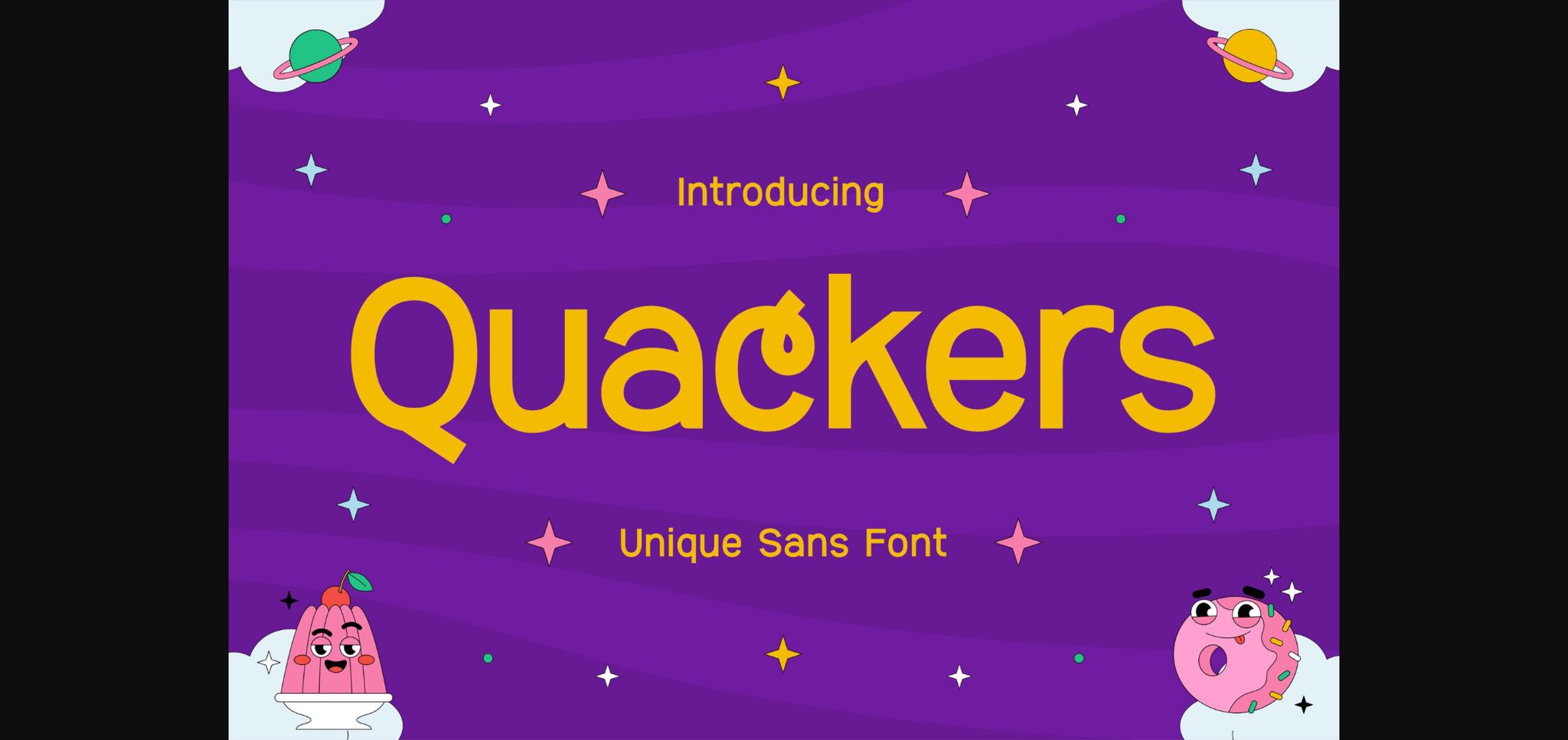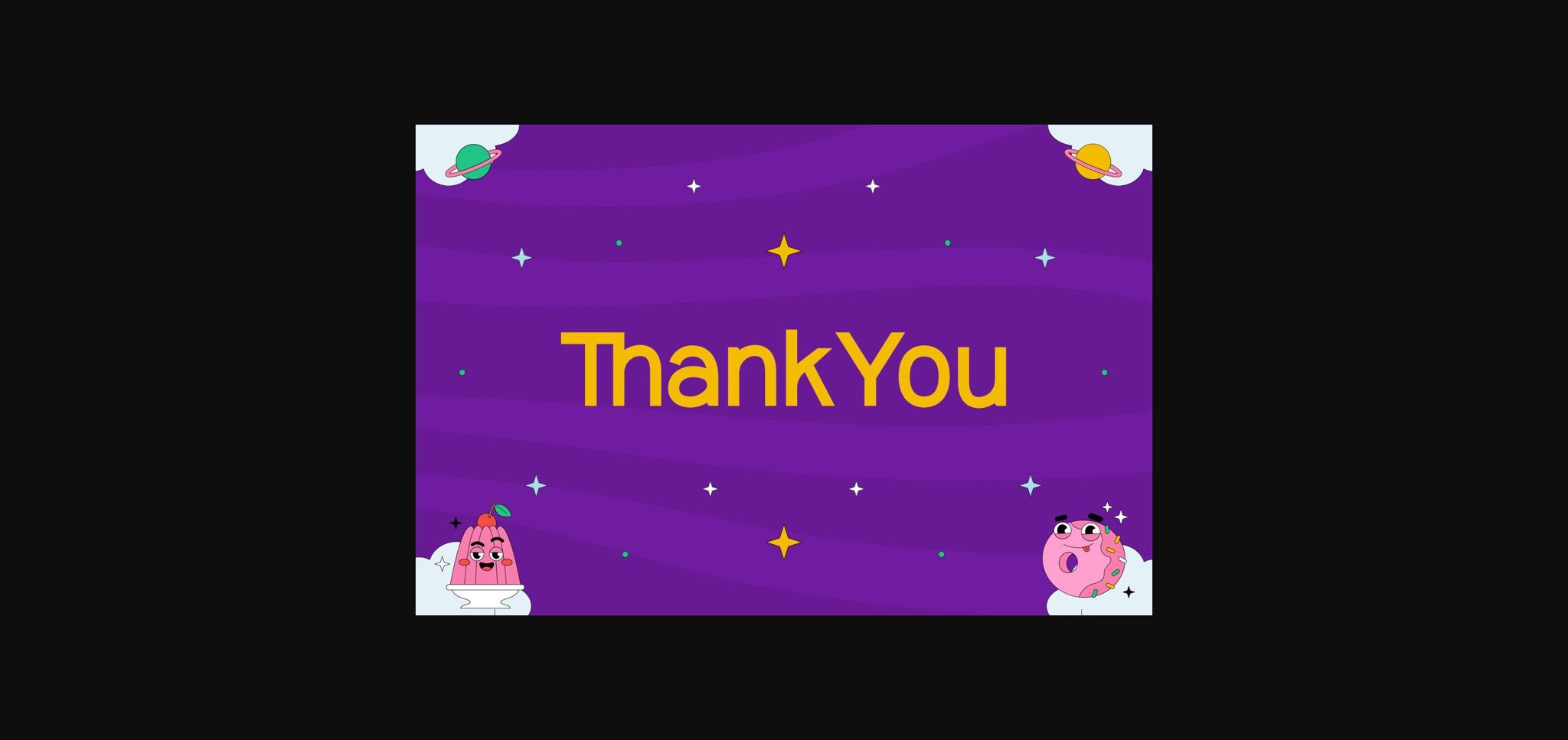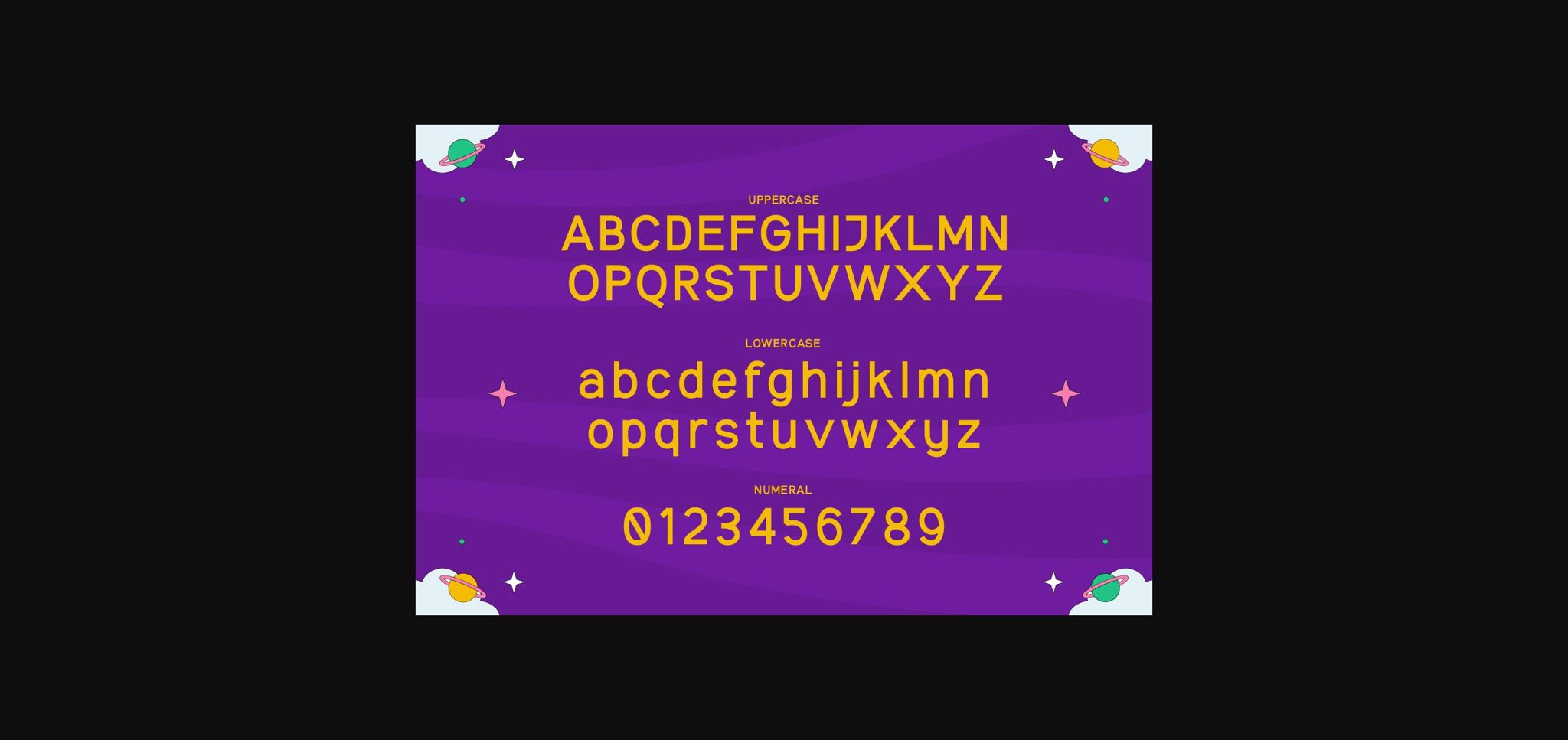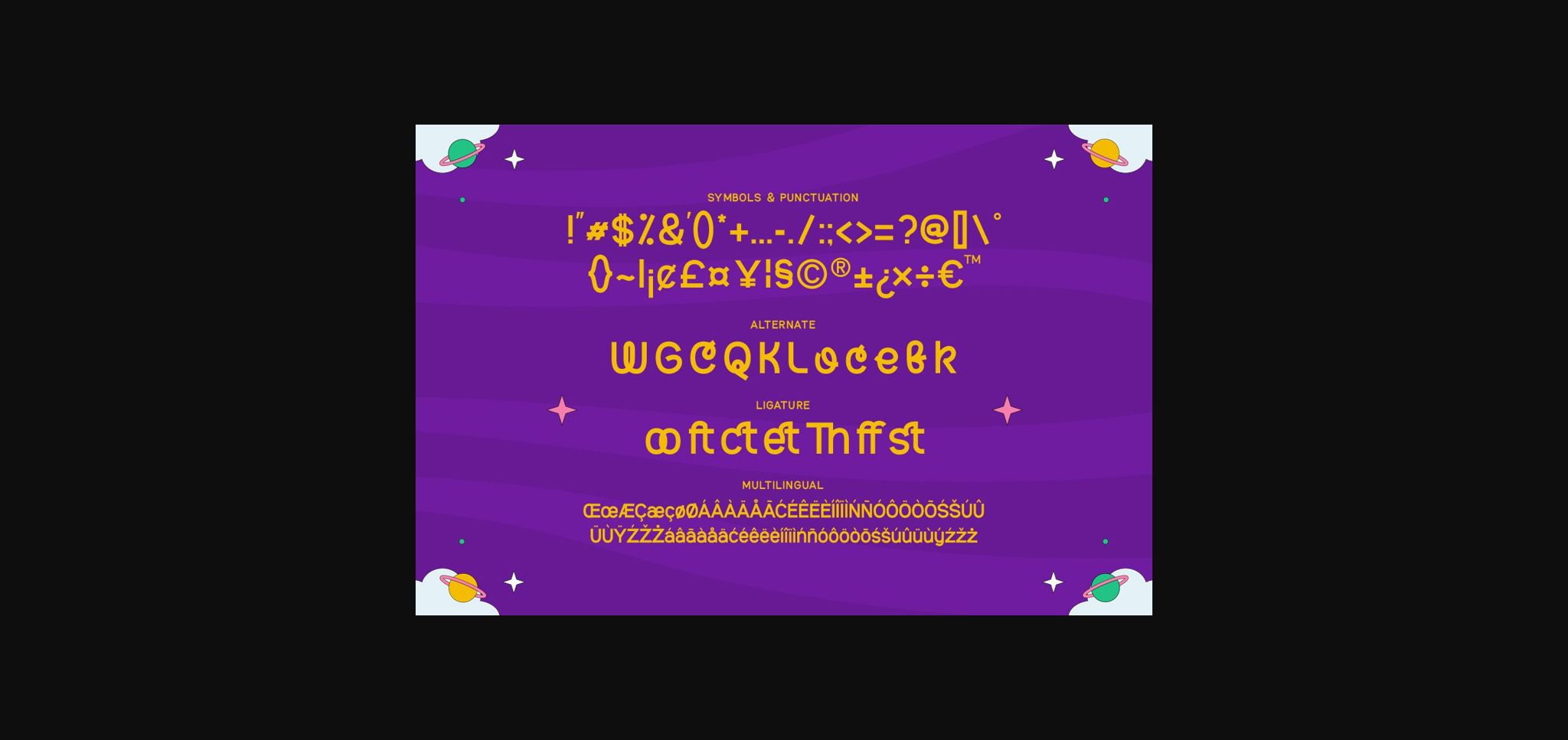
About Quackers Font
Quackers is a unique sans font.
This sans font will be the ideal choice for any cool project or great design you wish to develop.